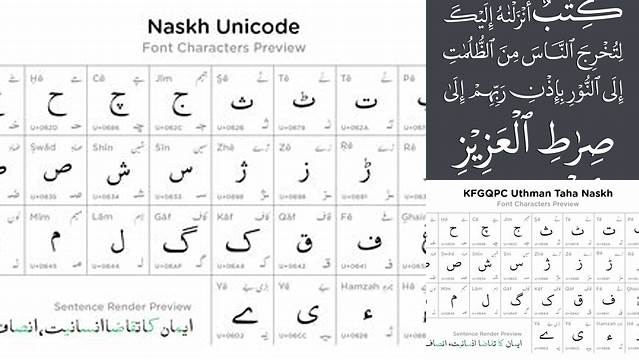
Naskh Font Free Download (TTF) - Your Guide to Elegant Calligraphy
Hey guys! Ready to dive into the world of beautiful Arabic calligraphy? Today, we're going to explore the Naskh font, one of the most popular and widely used styles in the Arabic script. And the best part? I'll guide you through how to get a Naskh font free download (TTF)! Whether you're a seasoned designer, a student of Arabic, or just someone who appreciates the art of beautiful writing, this guide is for you. We will discuss the beauty of Naskh fonts, the characteristics that set them apart, and where to find them. Plus, I'll give you some tips on how to install and use these fonts effectively in your projects. So, let's get started and unlock the elegance of Naskh calligraphy!
Understanding Naskh Font
Naskh font holds a special place in the realm of Arabic calligraphy. It is known for its clear, readable, and aesthetically pleasing design. Imagine a font that is both beautiful and functional. That's Naskh! This style is characterized by its graceful curves, balanced proportions, and ease of reading. Historically, Naskh was a favorite for copying the Quran, which is why it's often associated with reverence and tradition. The rounded letterforms make it friendly to the eye and are perfect for continuous reading, and this makes it ideal for everything from books and magazines to websites and digital content. When you use a Naskh font, you're not just choosing a font; you're embracing a piece of art and history. The flowing lines and elegant strokes of Naskh convey a sense of sophistication and cultural depth. It's like adding a touch of old-world charm to your modern designs. The beauty of Naskh lies not only in its aesthetic appeal but also in its practicality. The clarity and legibility of this font ensure that your message is effectively communicated. It's a great choice for anyone looking to add an elegant and authentic feel to their work. And with the availability of a Naskh font free download (TTF), it's accessible to everyone.
Naskh font is a cornerstone of Arabic calligraphy, and its versatility makes it suitable for a wide range of applications. For example, in the realm of graphic design, you can use it to create eye-catching logos, elegant invitations, and stunning posters. It is also perfect for editorial design, making it an excellent choice for books, magazines, and newspapers that require both readability and style. In the digital world, Naskh fonts are ideal for website headers, blog posts, and social media graphics, adding a cultural touch to your online presence. Educational materials like textbooks, educational posters, and worksheets can use Naskh fonts to make them look more appealing. If you need it for branding, you can incorporate a Naskh font into your brand identity to create a sense of authenticity and cultural richness. The font can even be used in religious texts and calligraphy, to add reverence to religious content. When you consider all these use cases, it is easy to see why a Naskh font free download (TTF) is a valuable asset.
Characteristics of Naskh Fonts
So, what makes a Naskh font so special? Well, it's all about the details! Let's break down the key characteristics that define this beautiful style, shall we? First off, the roundness of the letters is a major distinguishing factor. Naskh letters feature smooth, curved lines that create a flowing, harmonious appearance. This roundness enhances readability, making it easy on the eyes, which is essential for continuous text. This makes it a great option for long-form content. Another key characteristic is the consistent thickness of the strokes. Unlike some other calligraphic styles, Naskh maintains a balanced weight throughout its letterforms, which contributes to its visual harmony. This consistency ensures a clean and professional look in any application. Then there is the baseline alignment. Naskh fonts typically have a clear and consistent baseline, which helps guide the eye and makes the text easy to follow. This characteristic is crucial for creating structured and organized content, making sure that each line of text aligns perfectly, which improves readability. When you begin using Naskh, you’ll realize how these details work together to create a sense of balance and elegance that is both aesthetically pleasing and functional. It's like the font is inviting you to read the content.
Furthermore, the use of ligatures is common in Naskh fonts. Ligatures are combined letterforms that create a smoother, more visually appealing flow between characters. This is an essential feature of Arabic calligraphy that adds to the elegance of the text. Each character merges seamlessly with the others. Also, the ascenders and descenders of the letters are well-defined, which adds to the overall clarity and distinctiveness of the font. Ascenders are the parts of letters that extend above the x-height, while descenders are the parts that extend below. These characteristics work together to make Naskh fonts visually appealing and improve the overall reading experience. Because of these characteristics, Naskh fonts are often chosen for religious texts, educational materials, and official documents where clarity, elegance, and readability are paramount. With a Naskh font free download (TTF), you can experience the beauty and functionality of this wonderful font. You'll find your work comes alive with elegance and grace.
- Font Squirrel: Font Squirrel is known for its high-quality, hand-picked fonts, and you can often find some excellent Naskh fonts here. The site is dedicated to free fonts, and it's a great place to find fonts that are well-designed and ready to use. Be sure to check the license information for each font. You are sure to find unique and high-quality fonts in this resource.